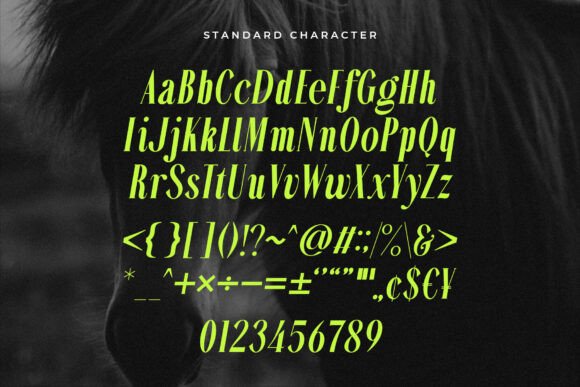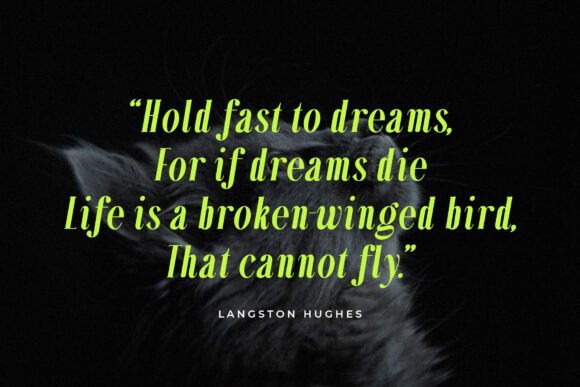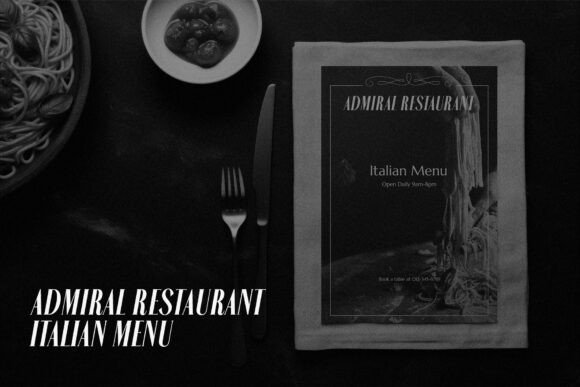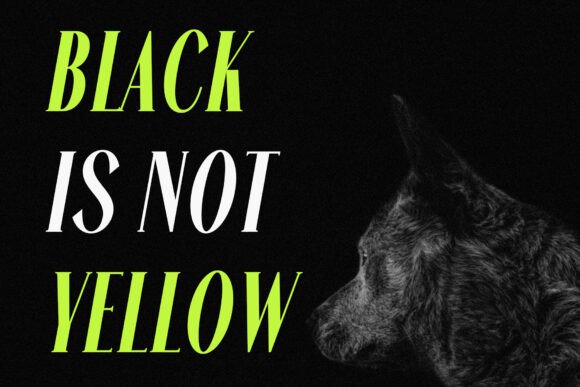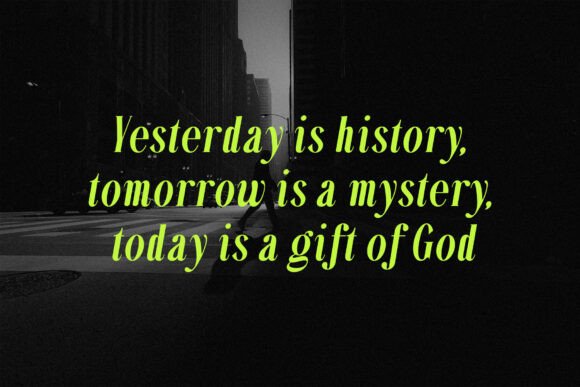
Discover the Elegance of Alterosa Font: A Minimalist Serif for Modern Designers
In the world of typography, fonts play a crucial role in conveying messages, expressing emotions, and creating visual identities. For designers and crafters, finding the perfect font can be a daunting task, especially when working on projects that demand a unique blend of style and sophistication. This is where Alterosa Font comes into play – a minimalist and elegant serif font designed to meet the diverse needs of modern designers.
What is Alterosa Font?
Alterosa is a thoughtfully crafted serif font that embodies the principles of minimalism and elegance. Its clean lines, subtle curves, and restrained ornamentation make it an ideal choice for a wide range of applications, from branding projects and logos to social media posts, advertisements, and more.
Key Features of Alterosa Font
- Minimalist Design: Alterosa’s design is characterized by simplicity and a focus on essential elements, making it versatile and easy to pair with other fonts.
- Elegant Serifs: The font features elegant serifs that add a touch of sophistication, making it suitable for high-end branding and luxury product designs.
- High Readability: Alterosa is designed to be highly readable, even at smaller sizes, ensuring that your message is conveyed clearly and effectively.
- Flexibility: This font can be used across various mediums, including digital platforms, print materials, and product packaging.
Use Cases for Alterosa Font
Alterosa’s versatility makes it an excellent choice for a multitude of design projects. Here are some of the ways you can utilize this elegant font:
- Branding Projects: Create a lasting impression with Alterosa’s unique and sophisticated look, perfect for logos, business cards, and brand guidelines.
- Social Media Posts: Elevate your social media presence with eye-catching posts and stories that showcase your brand’s personality.
- Advertisements: Grab attention and convey your message with clarity and style in print and digital ads.
- Labels and Product Packaging: Add a touch of elegance to your product designs, making them stand out on store shelves.
- Photography and Wedding Designs: Use Alterosa to add a sophisticated touch to your photography and wedding designs, such as watermarks, invitations, and more.
- Stationery: Create beautiful and professional stationery, including letterheads, envelopes, and notecards.
Why Choose Alterosa Font?
In a sea of fonts, Alterosa stands out for its unique blend of minimalism and elegance. Here are a few reasons why designers and crafters should consider Alterosa for their projects:
- Unique Style: Alterosa offers a distinctive look that can help your designs stand out from the crowd.
- Time-Saving: With its versatility and readability, Alterosa can save you time in choosing and pairing fonts for different projects.
- Professionalism: The font’s elegant design exudes professionalism, making it suitable for high-end clients and projects.
Alterosa Font is a valuable addition to any designer’s toolkit, offering a perfect blend of minimalism and elegance. Its versatility, readability, and unique style make it an excellent choice for a wide range of projects, from branding and advertising to photography and stationery. Whether you’re a seasoned designer or a crafter looking to elevate your designs, Alterosa Font is sure to meet your needs and exceed your expectations.